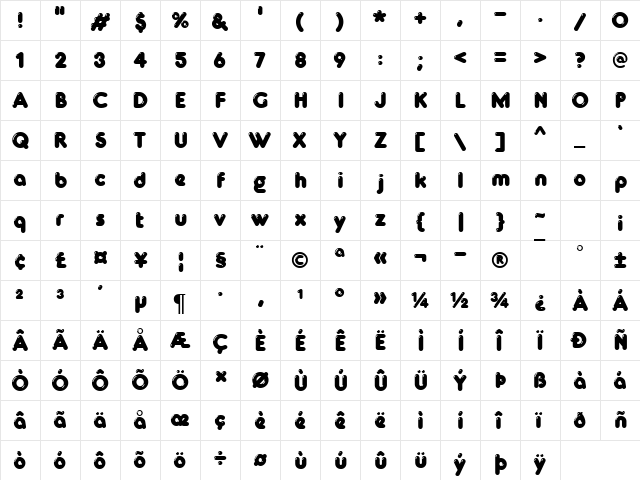
Glowworm Regular
Design Context for Glowworm Typeface
Glowworm takes a measured approach to typography — its balanced proportions and neutral character make it a reliable workhorse for both digital and print work.